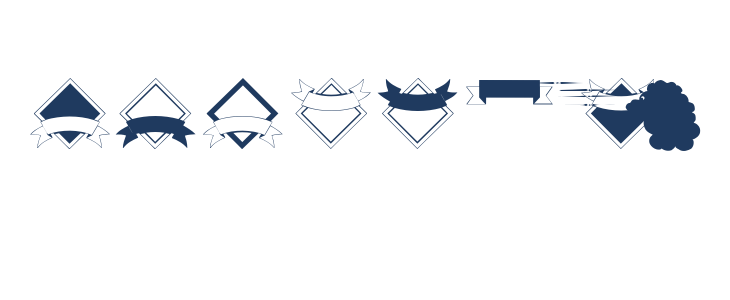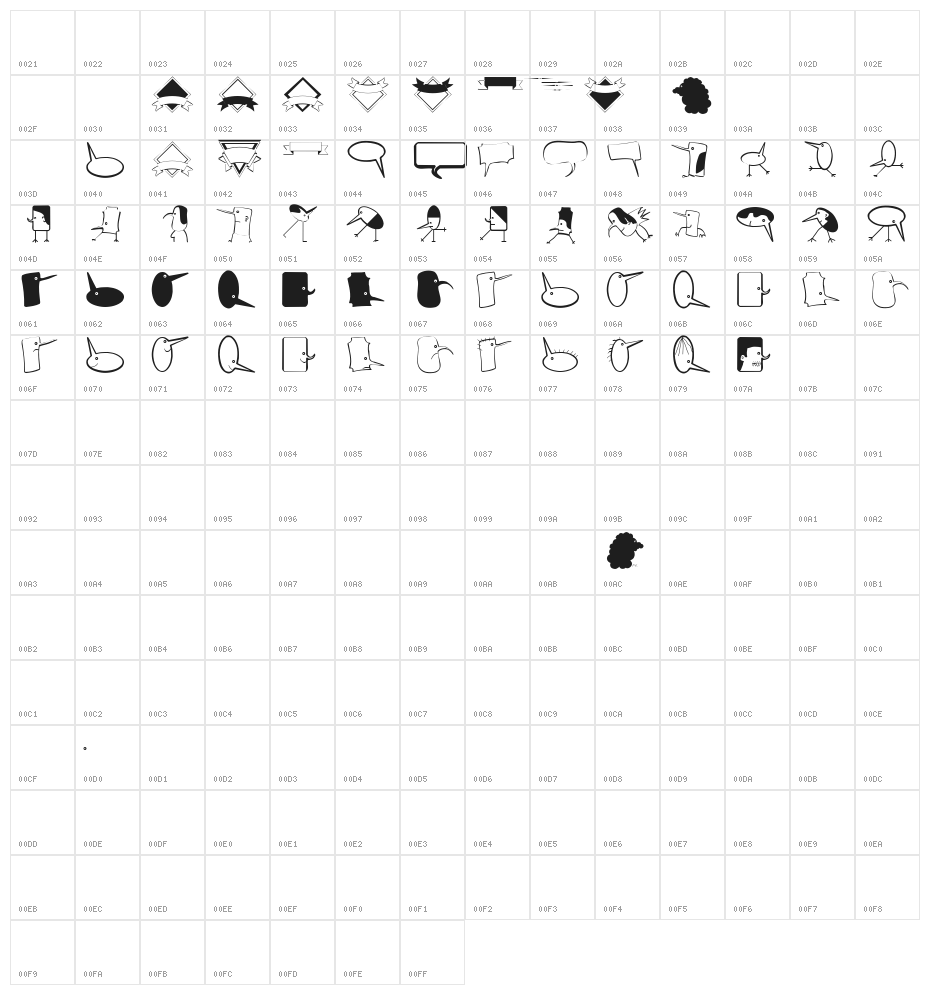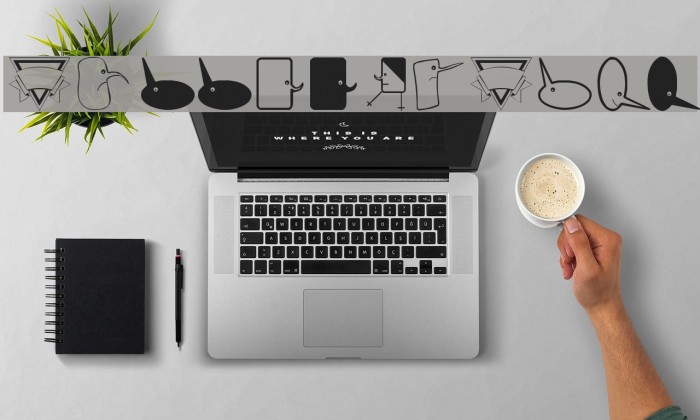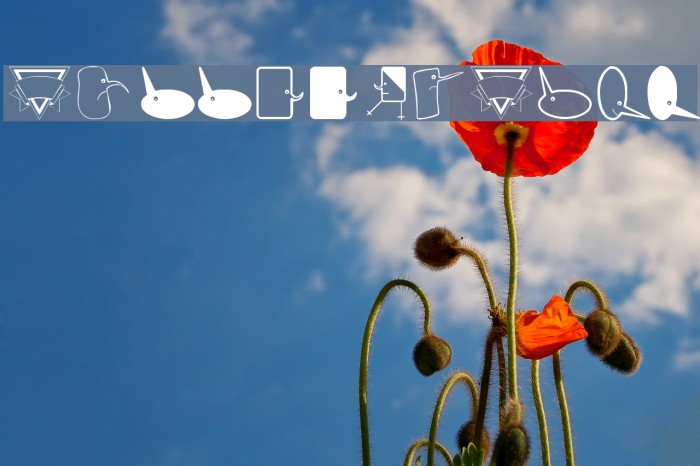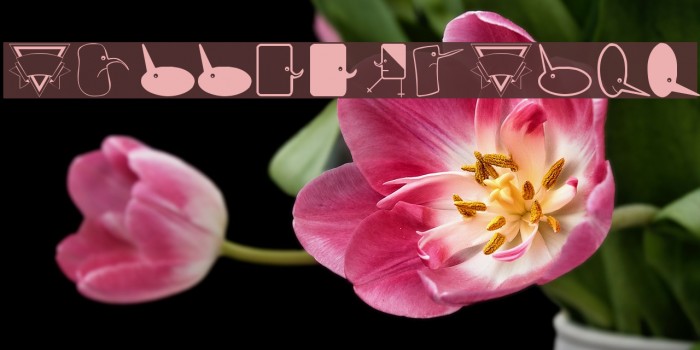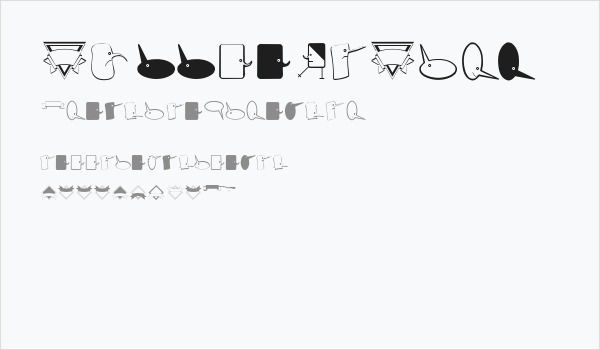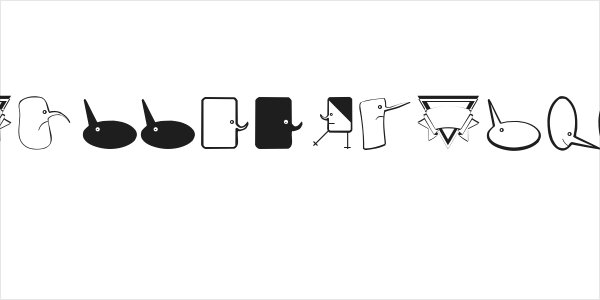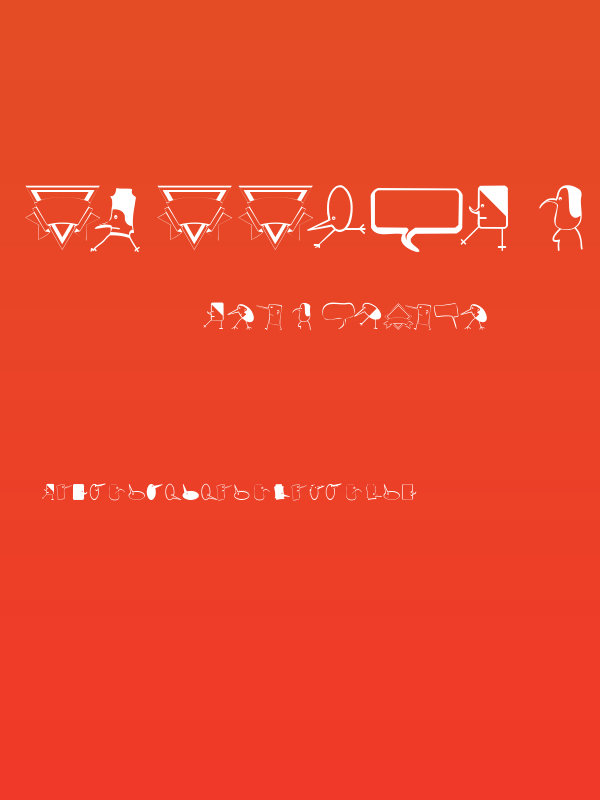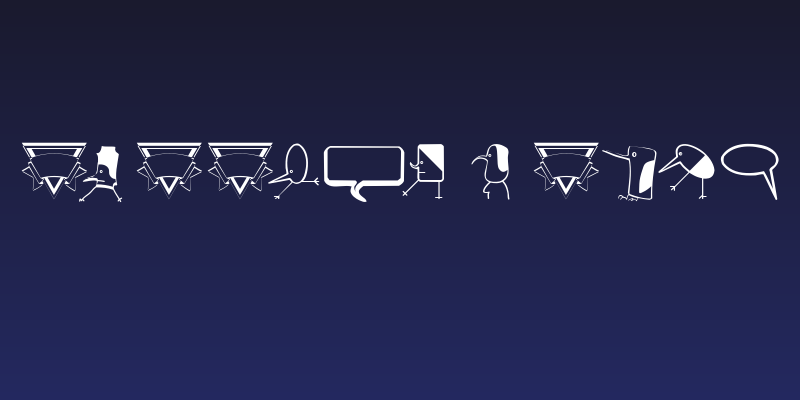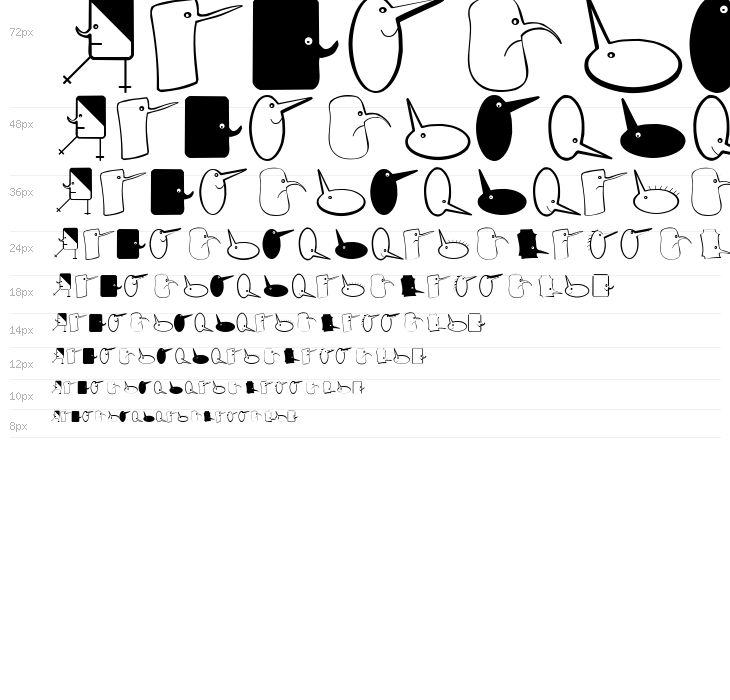
BubbleToBird Font
BubbleToBird Description
This is a whimsical and playful decorative font that transforms letters and characters into cartoonish birds and speech bubbles. Each character is creatively designed to resemble a bird or a speech bubble, adding a humorous and light-hearted touch to any text. The font features a mix of solid and outlined styles, with exaggerated features like beaks and wings, making it ideal for projects that require a fun and engaging visual element. The characters are well-spaced, allowing for clear readability despite their intricate designs.
| Overall Style | Whimsical and playful |
| Proposed Projects | Ideal for children's books, comic strips, playful branding, and greeting cards. |